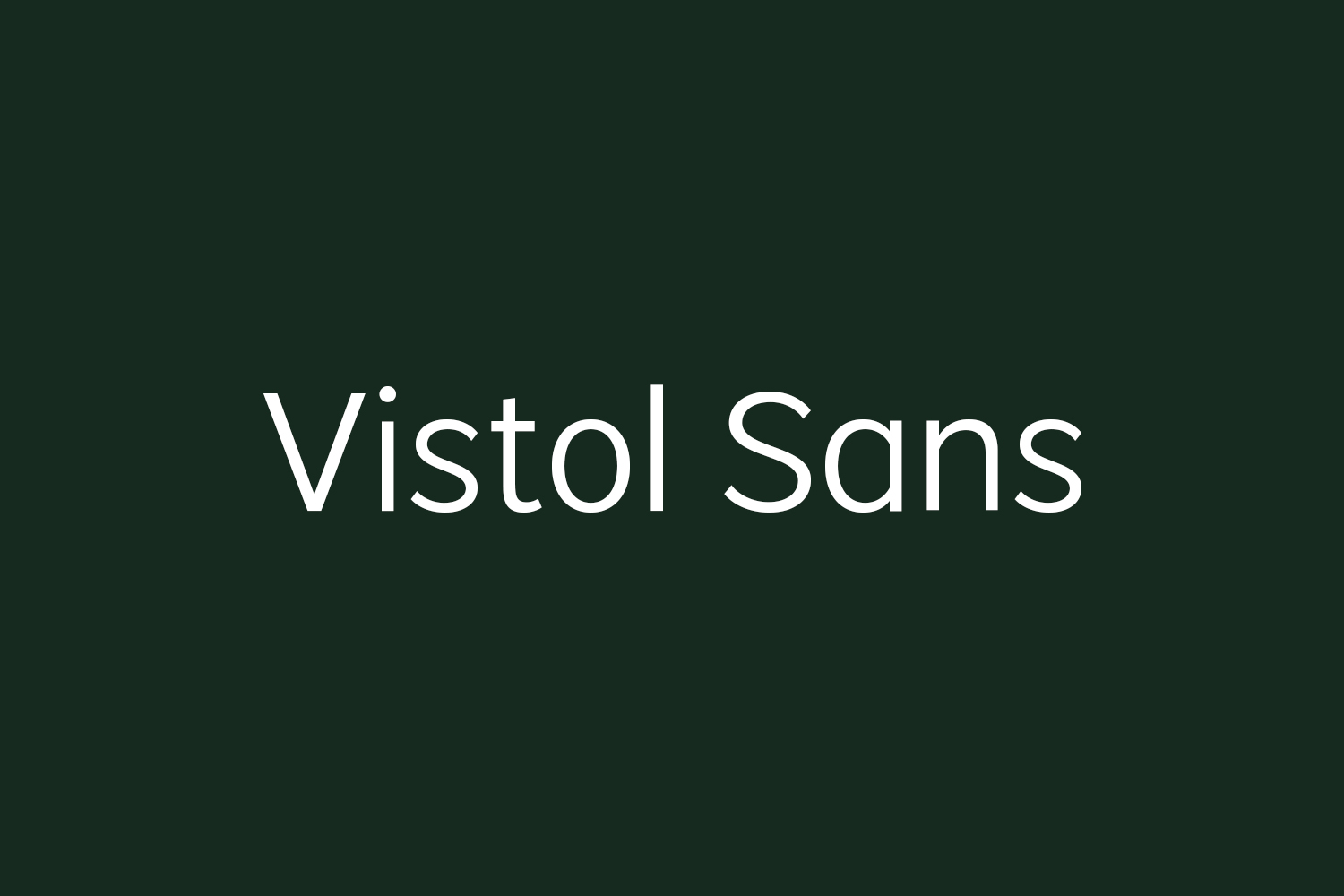
Vistol Sans Free Font is a minimal and neat sans serif font. It can easily be matched to an incredibly large set of projects, so add it to your creative ideas and notice how it makes them stand out. Vistol Sans Free Font was designed by Saffatin Сo and is free for personal use only. Please purchase the full version for commercial use.
Designed by Saffatin Сo